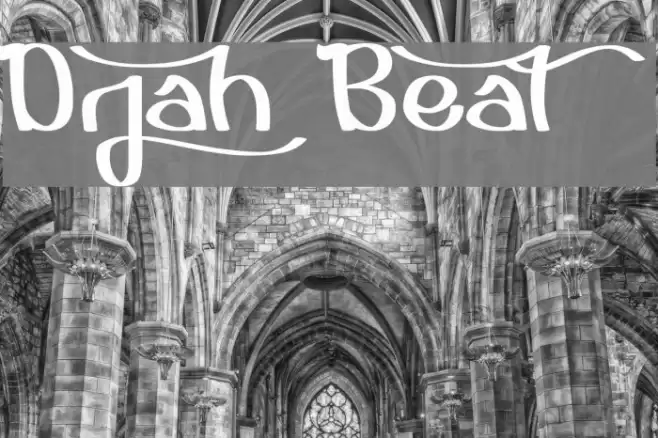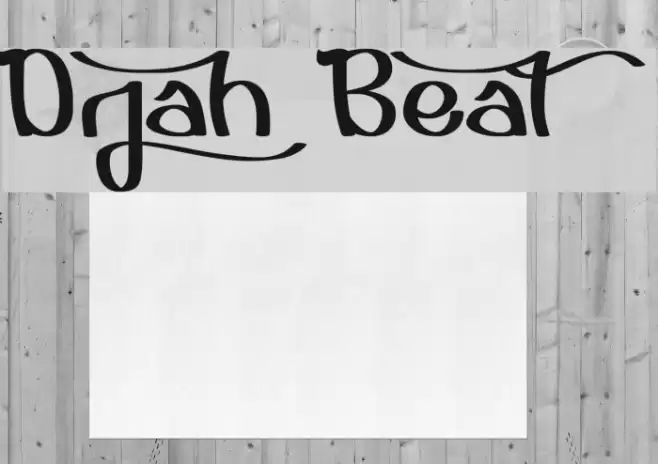
Djah Beat Font
Djah Beat Description
This font exhibits a bold and expressive style, characterized by its thick strokes and playful, artistic flair. The uppercase letters are robust and dynamic, with unique curves and angles that give each character a distinct personality. The lowercase letters maintain this creative energy, featuring whimsical loops and swirls that add a touch of elegance and movement. The numerals are equally bold, with a consistent weight that ensures readability while maintaining the font's artistic integrity. Special characters are designed with the same attention to detail, providing a cohesive look across all glyphs. This font's overall appearance is both modern and decorative, making it suitable for projects that require a bold statement.
A bold, expressive font with artistic curves and dynamic strokes from Uncategorized fonts.
- Proposed Projects: Ideal for branding, posters, album covers, and any project needing a bold, artistic touch.
- Overall Style: Modern, Decorative